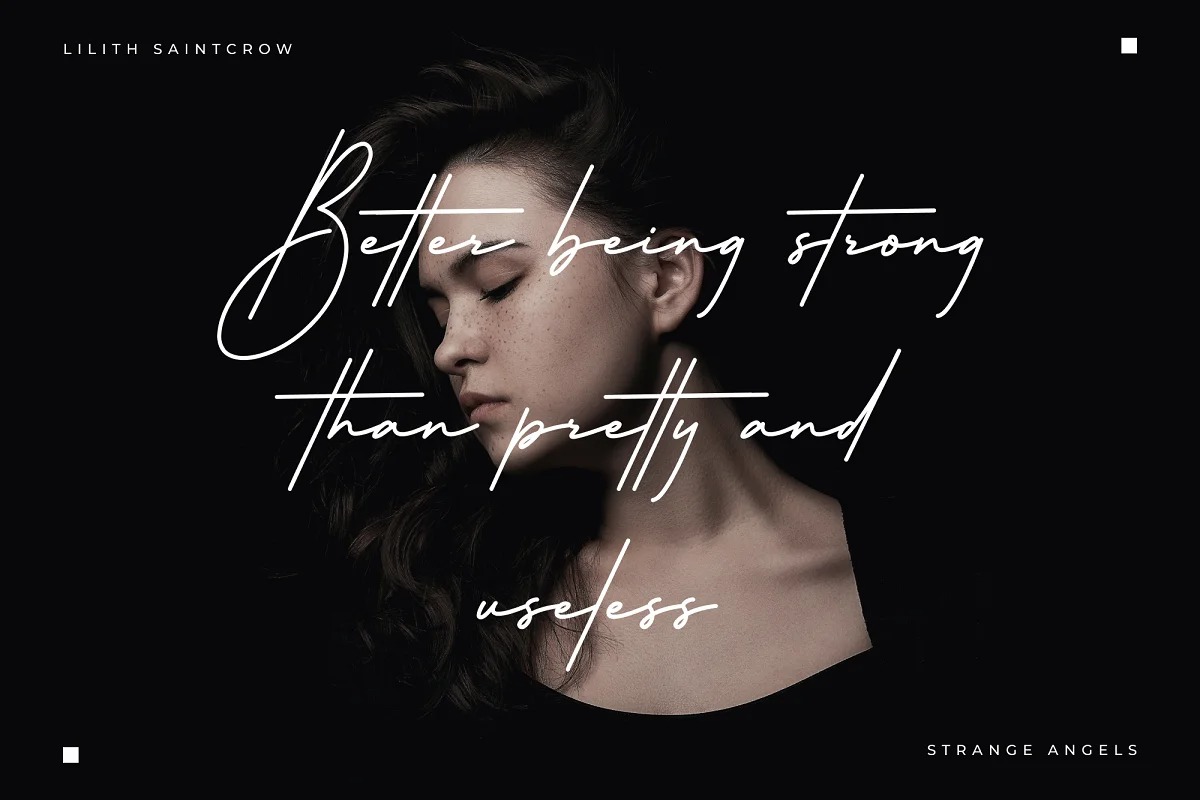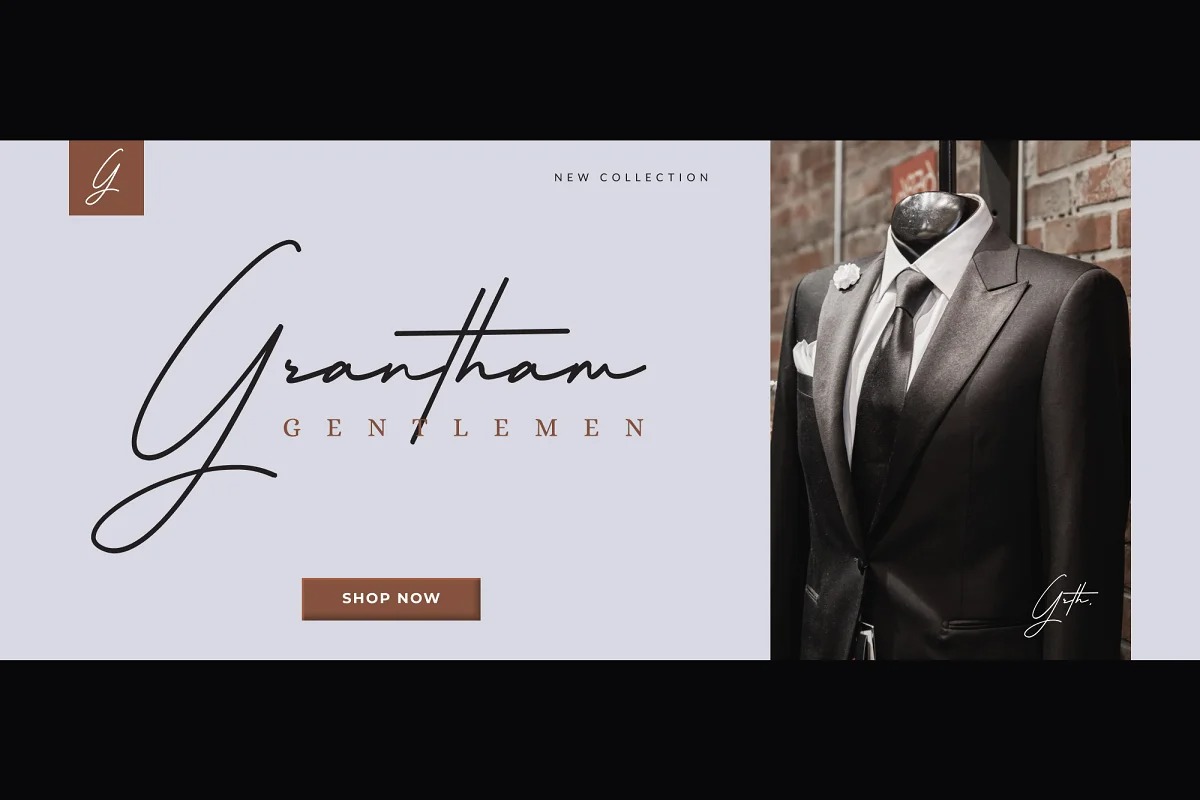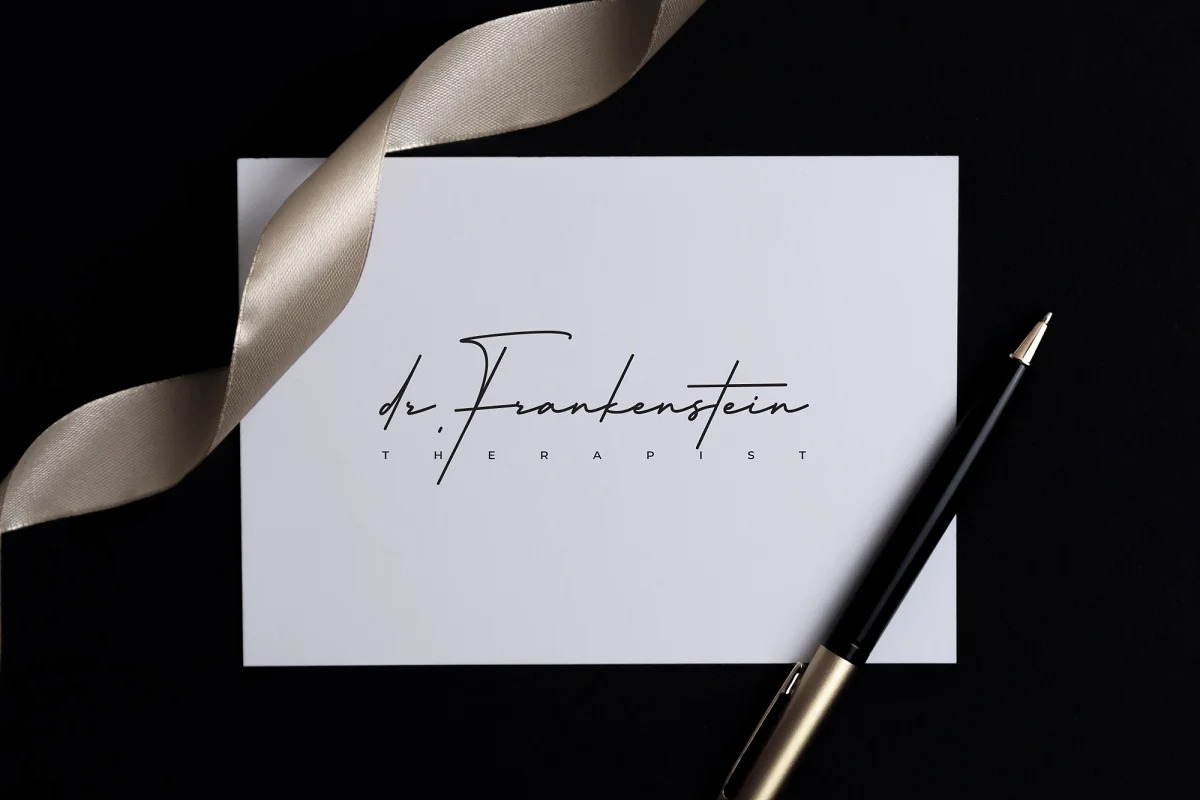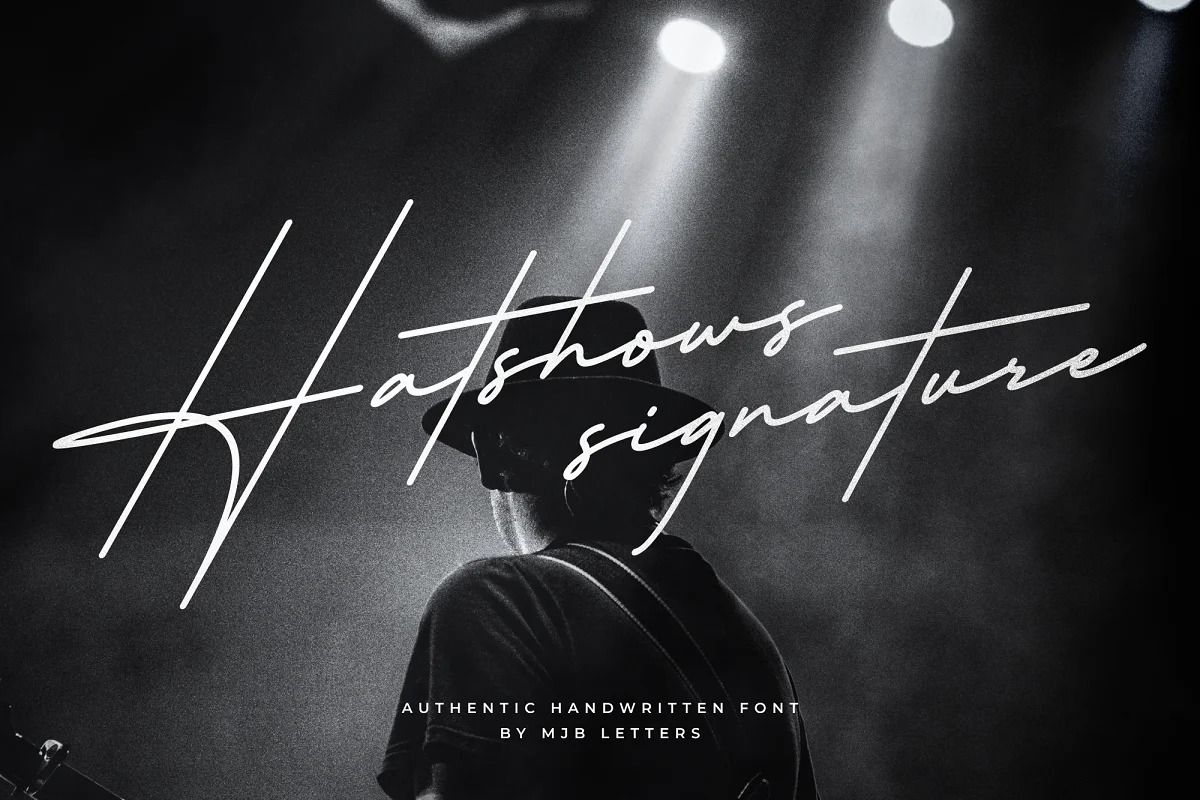
Hatshows Signature Font
This is a fancy handwritten script typeface crafted & designed by MJB Letters. With mono-line stroke, fun character with a bit of ligatures and alternates. Hatshows Signature is perfect for branding design, watermark, signature, logo design, packaging design, business card, fashion design, marketing tools, t-shirt design, wedding design and more.